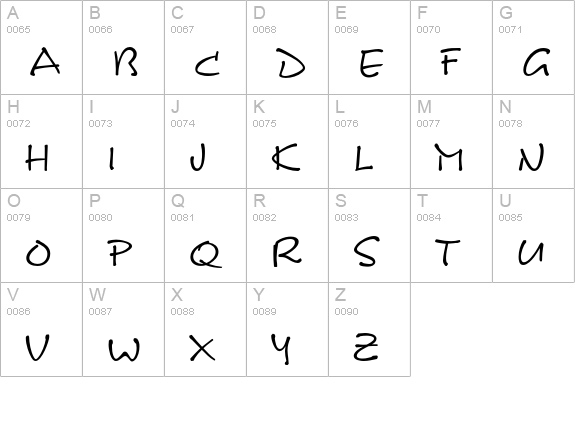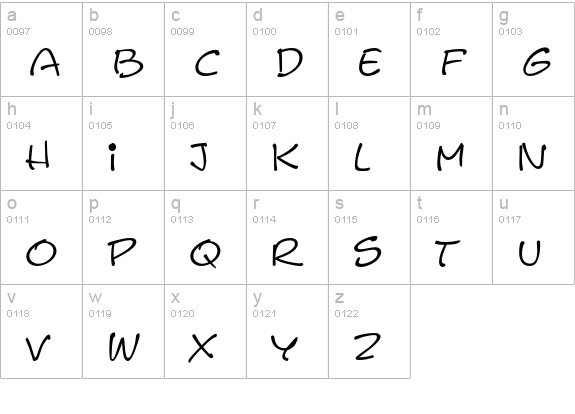
LeAsterix-Normal Font Details
LeAsterix-Normal is the standard, neutral variant in the LeAsterix typeface family \xE2\x80\x94 well suited to general body text, paragraphs, and standard typographic work.
LeAsterix-Normal is a captivating and versatile font that exudes a sense of modernity and elegance. Its clean lines and balanced proportions make it a perfect choice for a wide range of design projects. Whether you are creating a logo, designing a website, or crafting a corporate presentation, LeAsterix-Normal will effortlessly elevate your work to new heights. This font is characterized by its timeless appeal and exceptional legibility. Each letter is meticulously crafted to ensure maximum clarity, ensuring that your message is conveyed effortlessly. LeAsterix-Normal's smooth curves and sharp edges create a harmonious balance, making it a truly eye-catching typeface. One of the most incredible aspects of LeAsterix-Normal is that it is free! Yes, you read that right. This remarkable font is freely available to download at FontsMarket.com. By providing this font to designers and creatives at no cost, the creators of LeAsterix-Normal have made it accessible to everyone, regardless of their budget or resources. Whether you are a professional designer or a hobbyist, LeAsterix-Normal offers endless possibilities for your creative endeavors. Its versatility allows it to be used in a variety of design contexts, from print to digital media. Its open license also permits you to modify and customize the font to suit your specific needs, giving you complete creative freedom. Downloading LeAsterix-Normal from FontsMarket.com is a breeze. With just a few clicks, you can have this stunning font at your fingertips, ready to breathe life into your designs. So why wait? Embrace the power of LeAsterix-Normal and let your creativity soar.